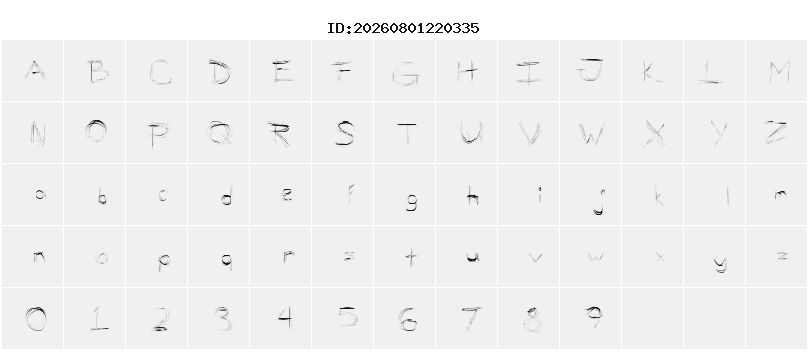
• Font Name: Mellow Scribbles
• Full Font Name: Mellow Scribbles 2
About Mellow Scribbles.ttf
Mellow Scribbles.ttf is a modern, elegant sans-serif font designed for ultimate readability and visual harmony. Perfect for branding, headlines, web design, and print materials.